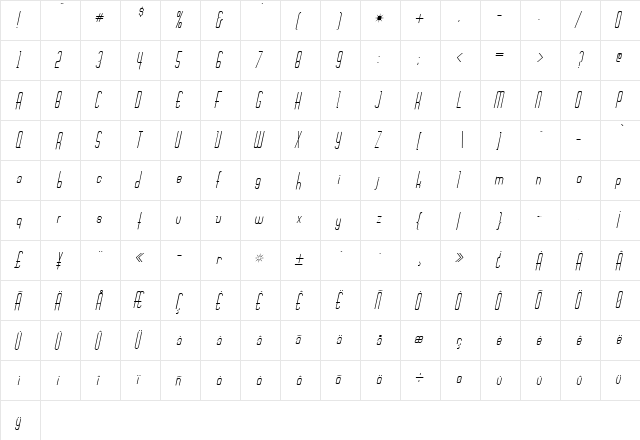
Chasline Oblique
Design Context for Chasline Typeface
Chasline offers clean, dependable letterforms without strong stylistic allegiance, making it a practical choice for designers who need flexibility. Its italic angle brings a sense of urgency and motion to the letterforms.
Pro Tip: Use Chasline for emphasis, pull quotes, and subheadings where its slanted energy can add rhythm to the layout.